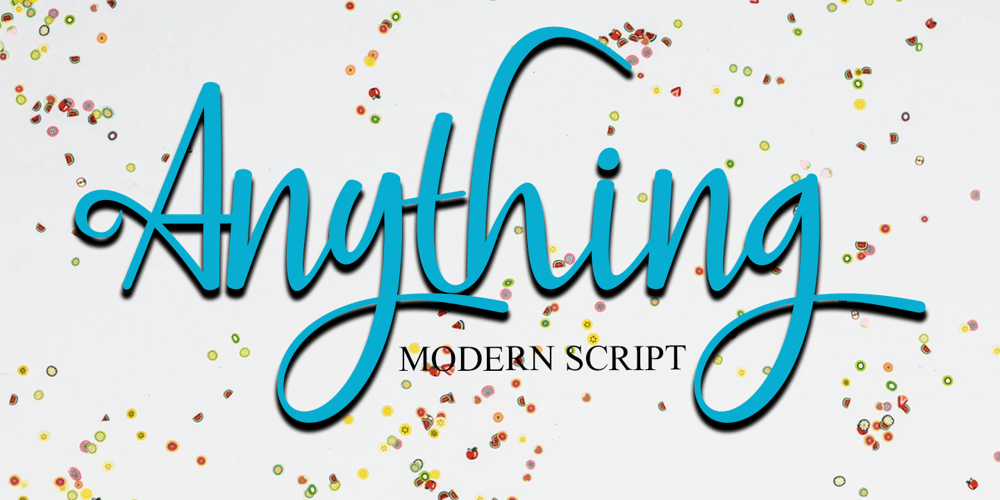
Anything
Anything font
Anything Font Family was designed by Arief Tri Sulistiyono and published by Supersemarletter. Anything contains 1 styles and family package options. Anything is a handwritten script style in Uppercase and Lowercase feel nice balanced. Provide ligatures with special character make the design letter looks incredible. Honestly it works perfectly for headlines, logos, posters, packaging, T-shirts and much more.Font Features :• Regular version• Character set A-Z in uppercase and lowercase• Ligatures in Lowercase and special• Alternates option• Numerals & Punctuation• Accented Characters• Multiple Languages SupportedRecommended to use in Adobe Illustrator or Adobe Photoshop with opentype feature.If you have questions, just send me a message and I’m glad to help.